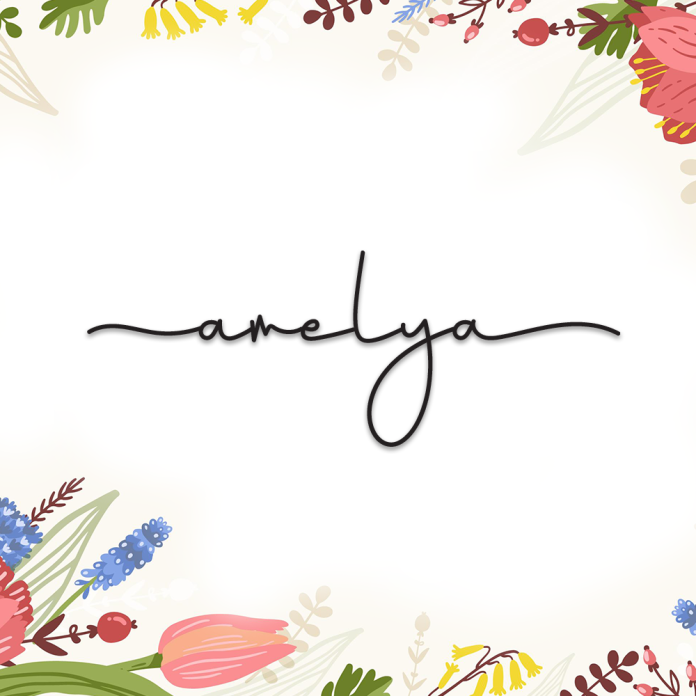
Amelya is an elegant and charming handwriting font, designed with soft curves and a graceful flow that resembles beautiful handwritten notes. Perfect for adding a personal yet sophisticated touch to your designs.
Elegant and smooth handwritten style
Ideal for wedding invitations, luxury branding, and aesthetic quotes
Neat yet natural letterforms
Complete with uppercase, lowercase, numbers, and punctuation
Add a touch of elegance and warmth to your projects with Amelya.